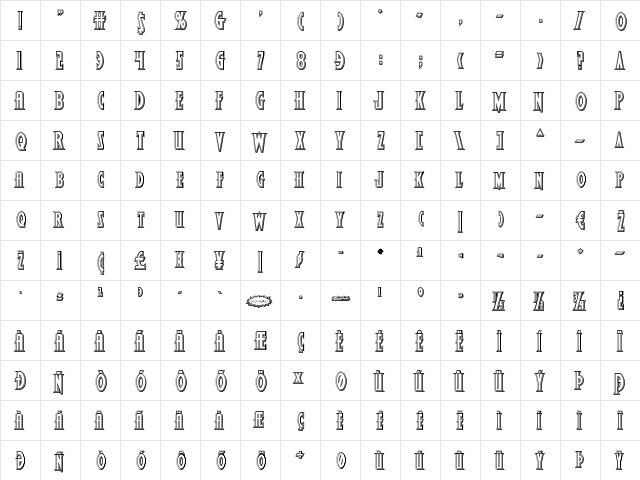
Wolf's Bane II Engraved Regular
Design Context for Wolf's Bane II Engraved Typeface
Wolf's Bane II Engraved brings ornamental detail and strong personality to headlines and identities, where visual impact matters more than quiet functionality.
Font Pairing: Pair with a clean neutral sans-serif for body copy to let Wolf's Bane II Engraved's character lead without overwhelming the composition.
Pro Tip: Treat Wolf's Bane II Engraved as the centrepiece of your typographic hierarchy. One strong heading set in a decorative face can carry an entire layout.